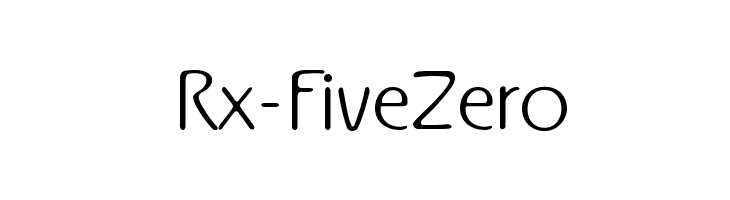
A modern, elegant font with smooth curves and a slightly italicized style.
( Fonts by Santiago Ortiz )
A playful, handwritten font with an informal and casual style.
A bold, edgy font with sharp angles and high contrast.
A bold, playful handwritten font with rounded, consistent strokes.
A playful, hand-drawn style with tall, narrow letters and a whimsical feel.
( Fonts by Des Gomez )
A playful, handwritten font with a whimsical and casual style.